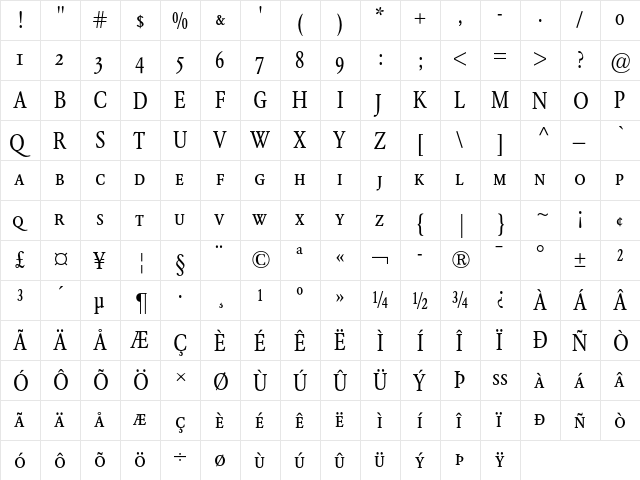
Garamond BE Condensed SC Font Preview
Garamond BE Condensed SC
Design Context for Garamond BE Typeface
Garamond BE takes a measured approach to typography — its balanced proportions and neutral character make it a reliable workhorse for both digital and print work. The condensed width makes it efficient for tight spaces without sacrificing legibility.